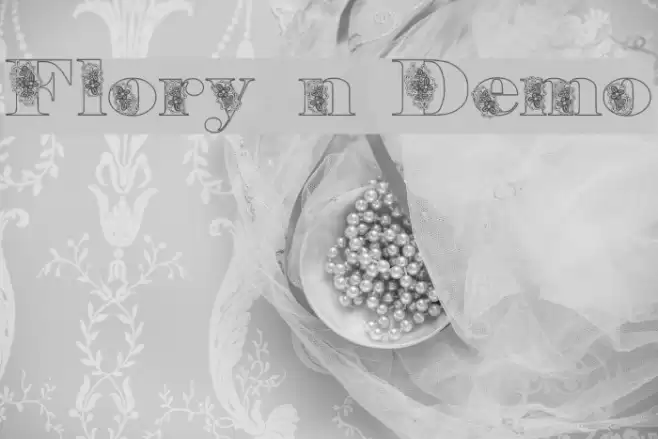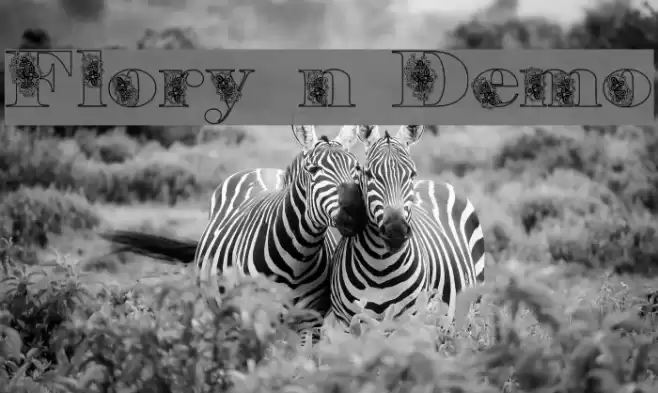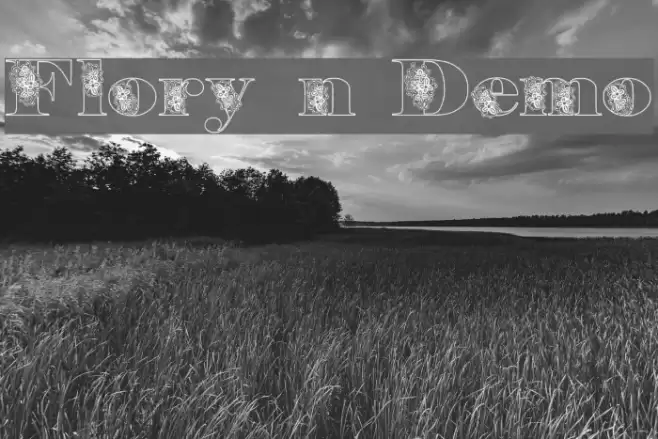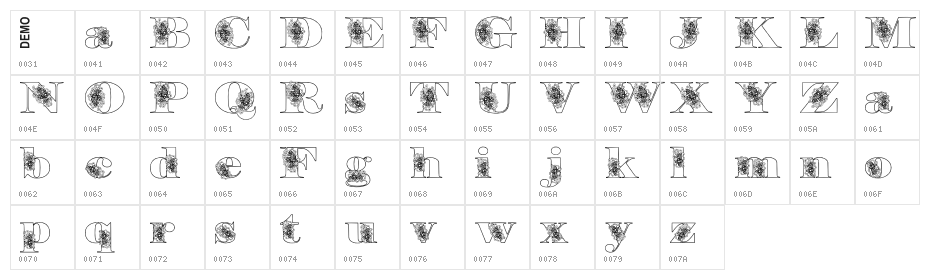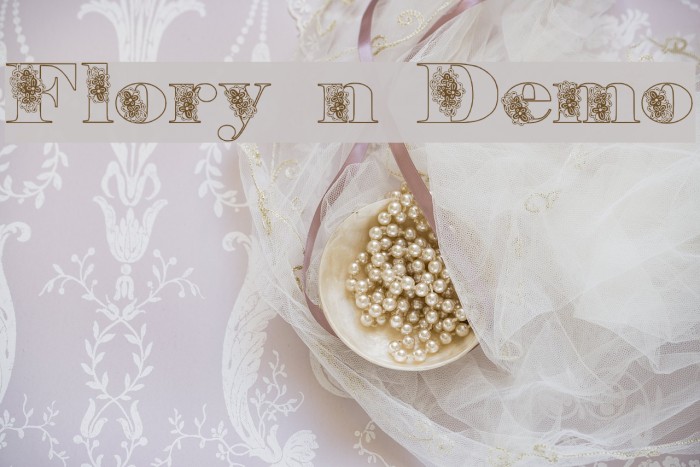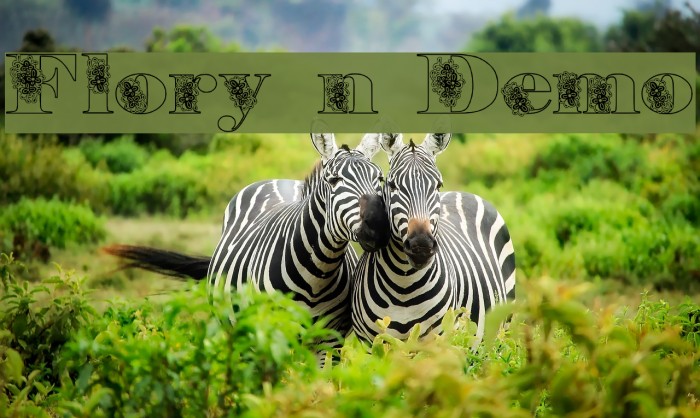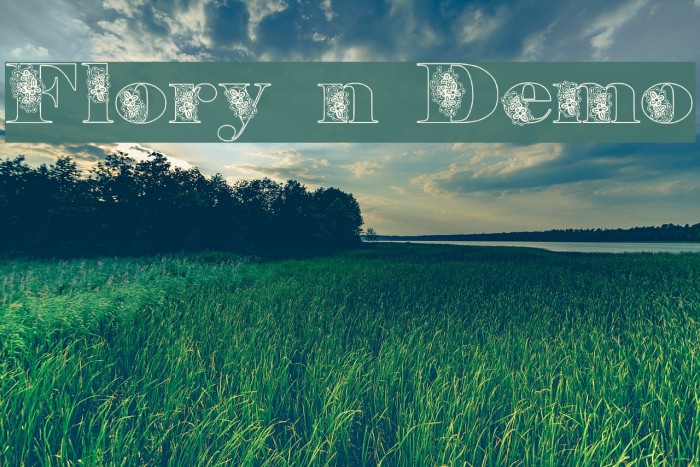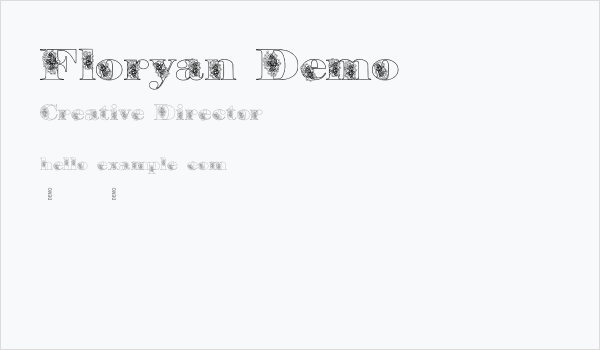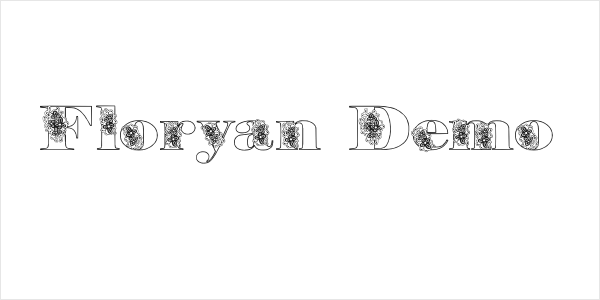
Floryan Demo Font
Floryan Demo Description
This font features an intricate and decorative design, characterized by ornate floral patterns embedded within each letter. The uppercase and lowercase letters maintain a consistent style, with embellishments that add a touch of elegance and complexity. The font's unique aesthetic makes it stand out, offering a blend of classic serif structure with artistic flair. The decorative elements are detailed, providing a rich visual texture that is both captivating and sophisticated. This font is ideal for projects that require a distinct and artistic touch, making it suitable for creative and formal applications.
An ornate and decorative serif font with intricate floral patterns from Uncategorized fonts.
- Proposed Projects: Ideal for wedding invitations, luxury branding, artistic posters, and decorative headings.